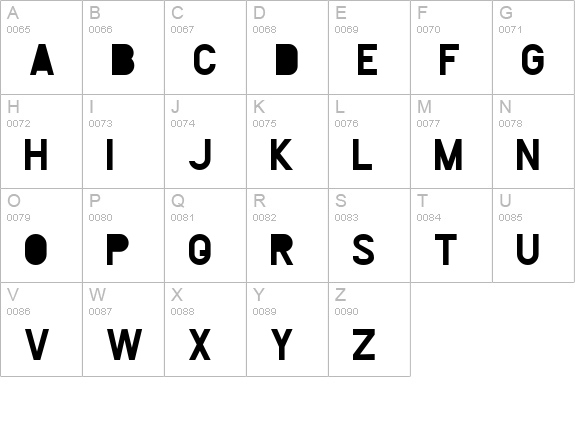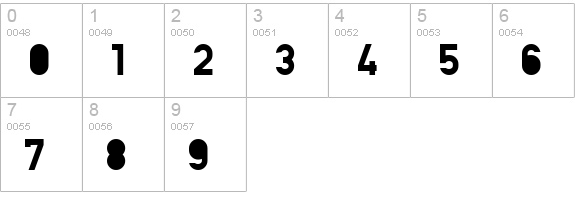
Yoru_yami font is a stunning display typeface that brings a touch of mystery and elegance to any design project. Its unique and intricate letterforms are inspired by the enigmatic beauty of the night, with subtle curves and sharp edges that create a perfect balance between darkness and light. This font is not only visually captivating but also highly versatile, making it suitable for a wide range of creative applications. Whether you're designing a logo, a poster, a website, or any other creative project, Yoru_yami font will add a touch of sophistication and intrigue. One of the best features of Yoru_yami font is that it is available free of charge. You can easily download it at FontsMarket.com, a trusted online platform for fonts and typography resources. This means that you can use this font in both personal and commercial projects without any restrictions, making it an excellent choice for designers on a budget or those who simply appreciate high-quality free resources. With its captivating design and the added bonus of being freely available, Yoru_yami font is a must-have for any designer looking to add a touch of elegance and mystery to their work. Don't miss the opportunity to download this stunning font and unleash your creativity today!